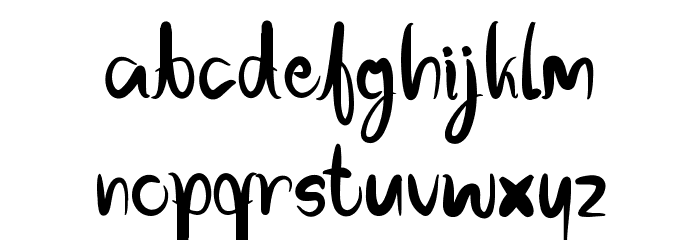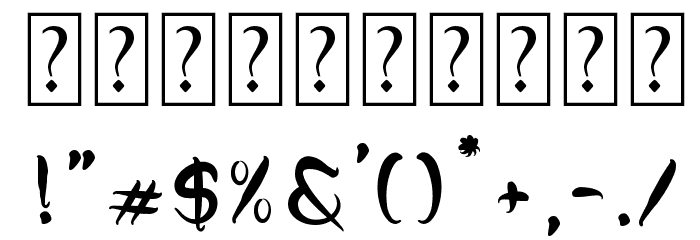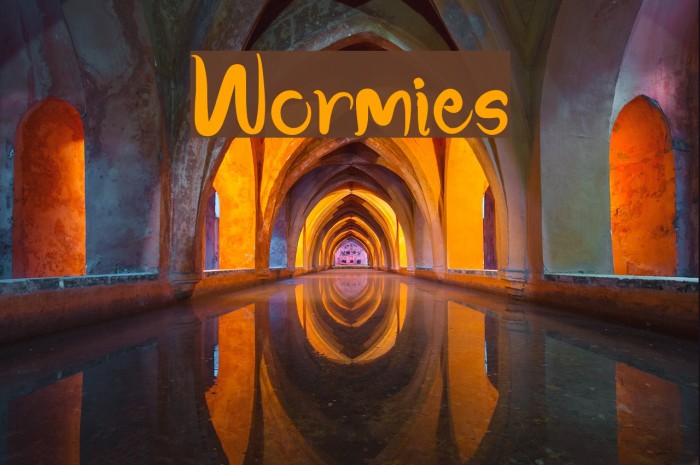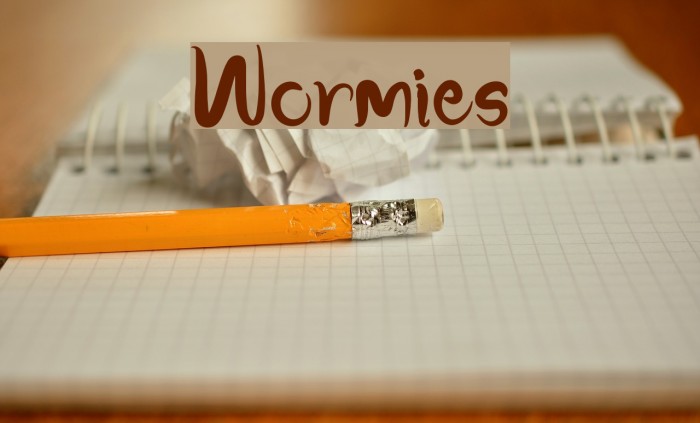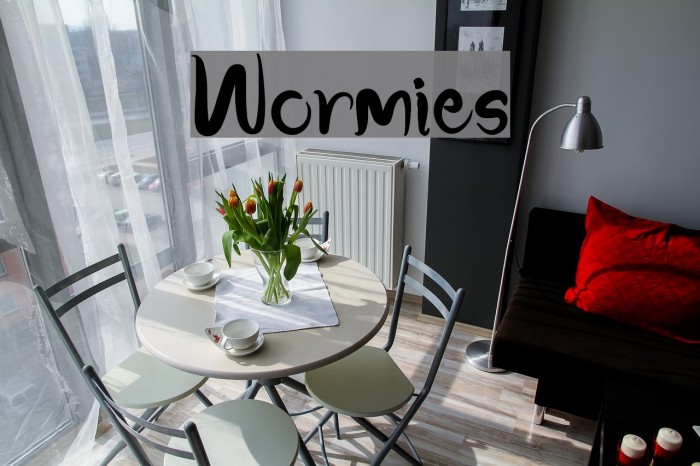
Wormies Font
This playful and whimsical font features a handwritten style with a lively and energetic appearance. The characters are bold and have a slightly irregular baseline, giving them a dynamic and informal look. The strokes are smooth and rounded, with a consistent thickness that adds to the font's approachable and friendly feel. The uppercase letters are tall and slightly narrow, while the lowercase letters maintain a consistent height, enhancing readability. The font includes a full set of numerals and a variety of punctuation marks, making it versatile for different design needs. Its unique style is perfect for projects that require a touch of personality and creativity.
A playful, handwritten font with smooth, rounded strokes and a lively appearance.
- Proposed Projects: Ideal for children's books, greeting cards, playful branding, and creative social media graphics.
- Overall Style: Playful
- Use Case: Headlines, Logos, Informal Text